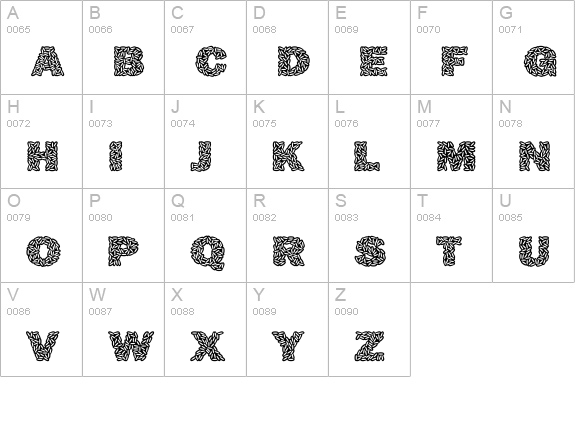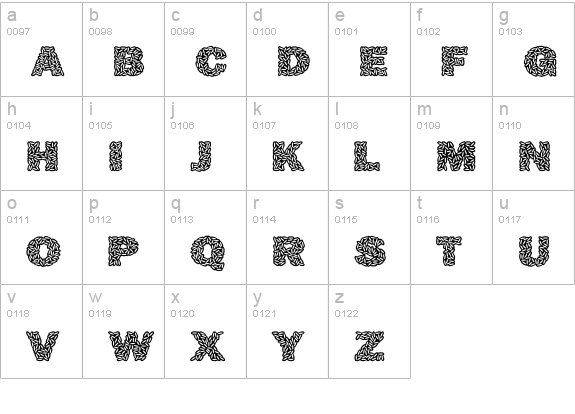
RicecakesTwo Font Details
RicecakesTwo font is a whimsical and playful typeface that adds a touch of charm to any design project. With its rounded edges and quirky characters, this font is perfect for creating eye-catching headlines, greeting cards, logos, and more. The unique design of RicecakesTwo font makes it stand out from the crowd and adds a fun and cheerful vibe to your work. And the best part? RicecakesTwo font is available for free download at FontsMarket.com! Whether you're a designer looking to add a creative touch to your projects or someone who simply loves experimenting with different fonts, RicecakesTwo font is a must-have in your collection. Download it today and let your creativity run wild with this delightful and charming typeface.